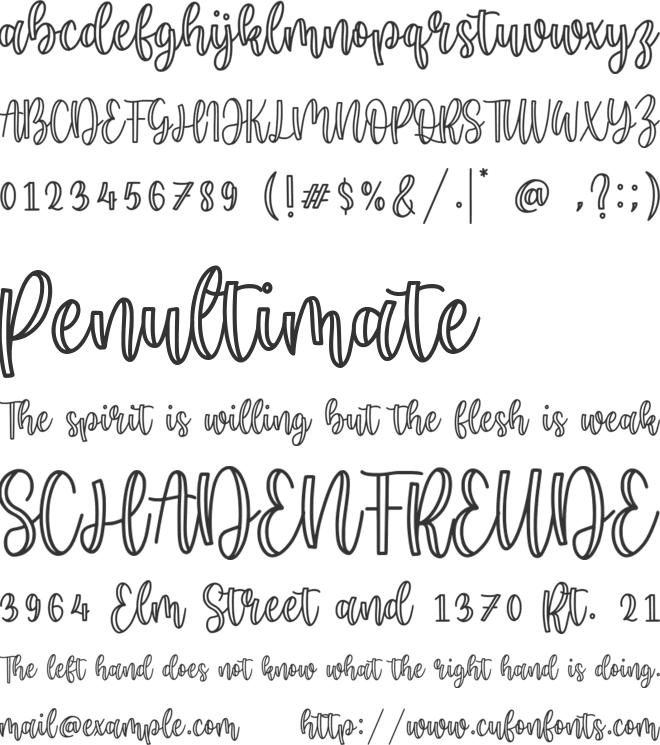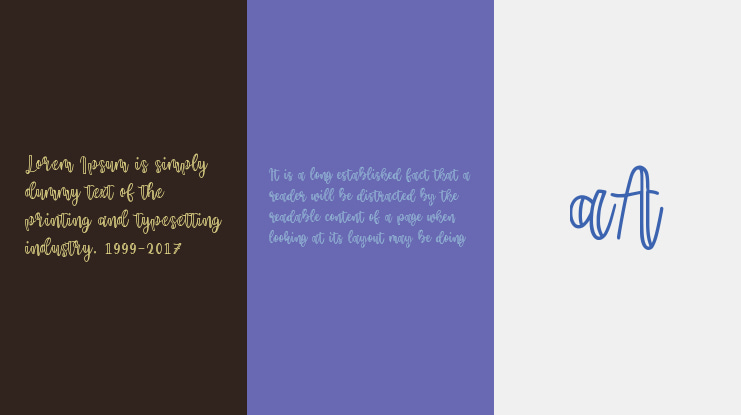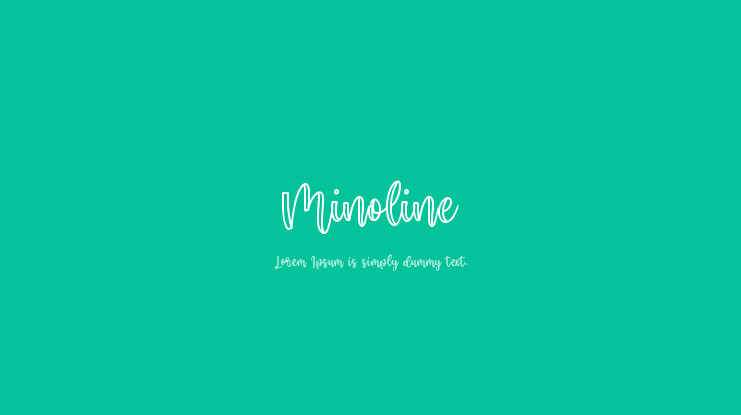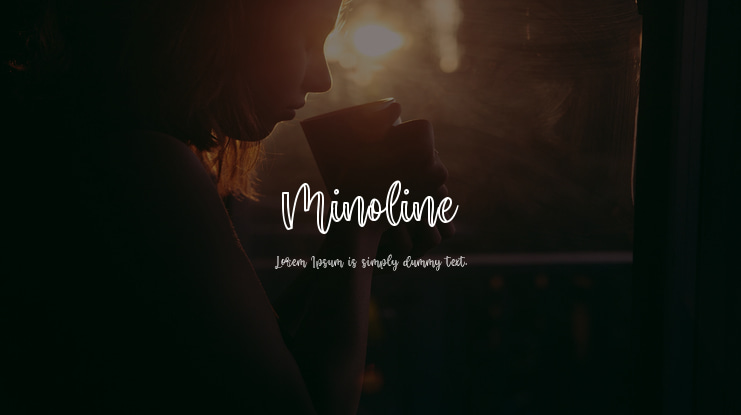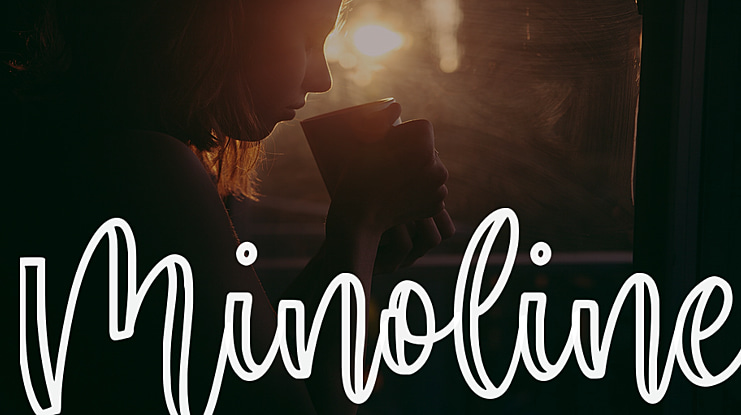
Minoline Font
Proudly Present, Minoline Font.
Minoline is a Cute Modern Calligraphy font.
Minoline is perfect for product packaging, branding project, megazine, social media, wedding, or just used to express words above the background.